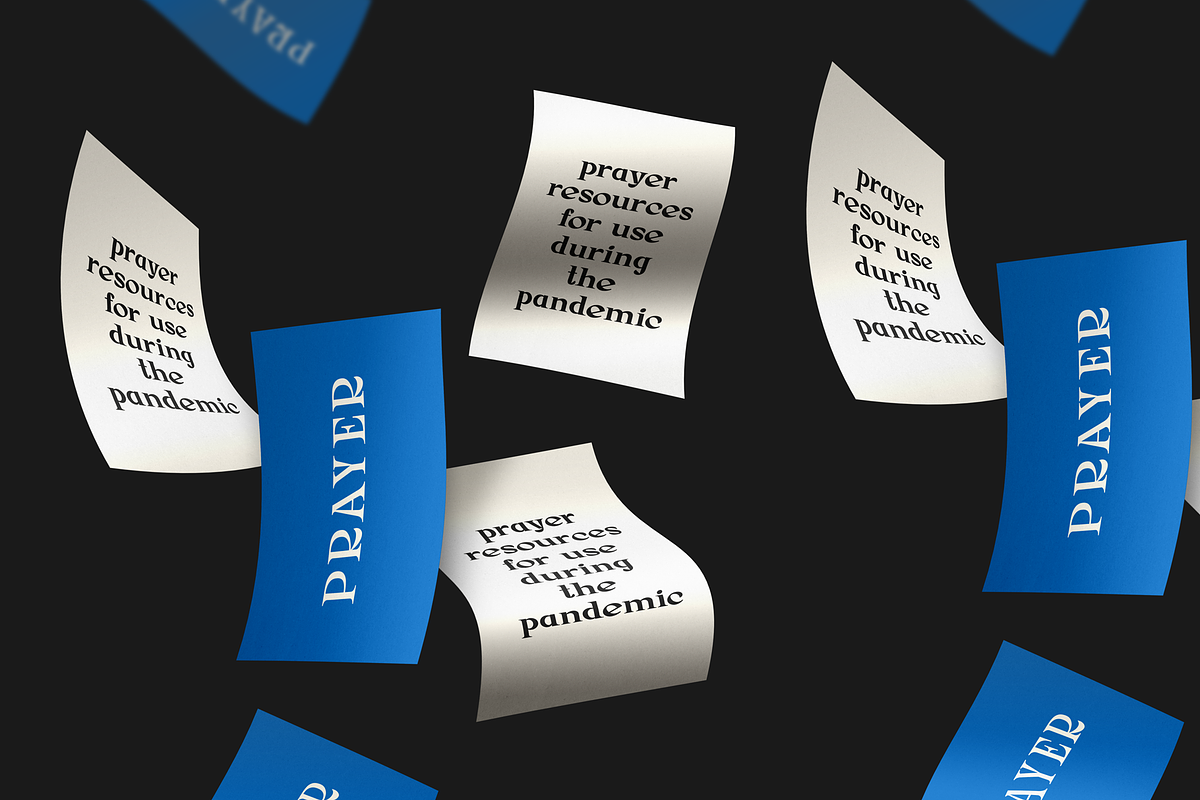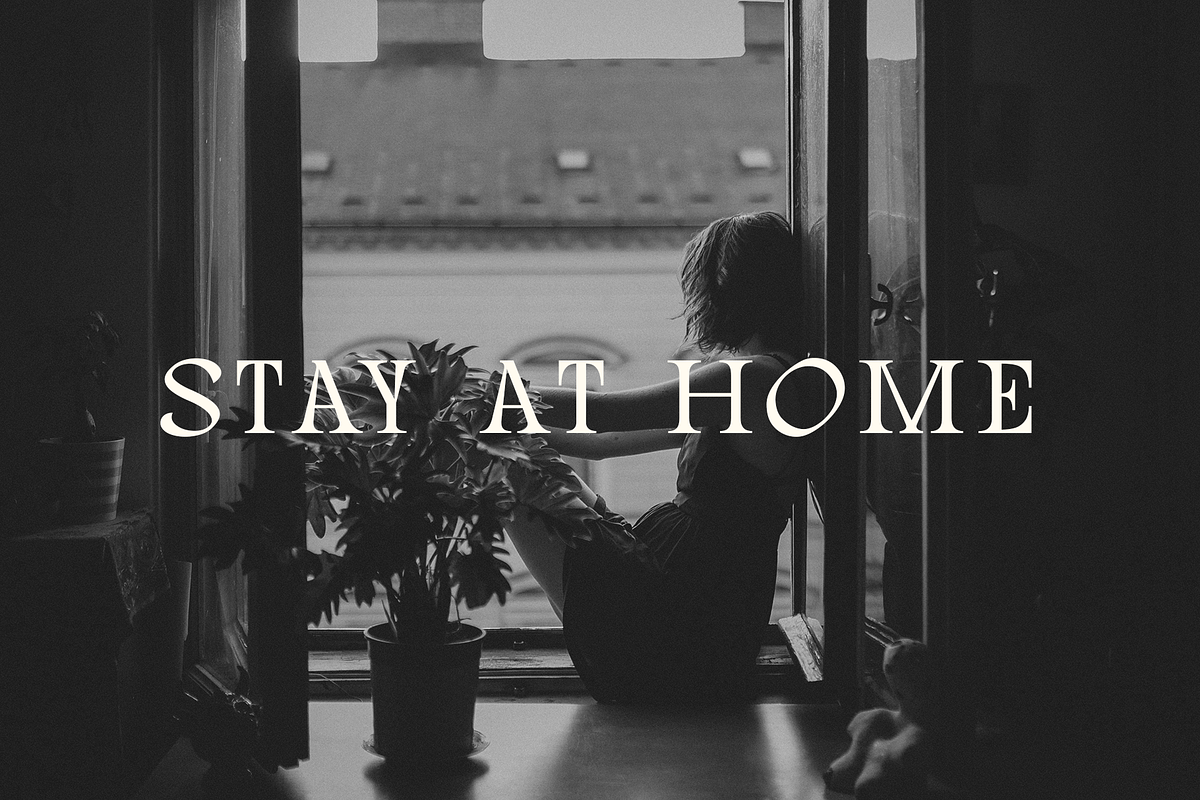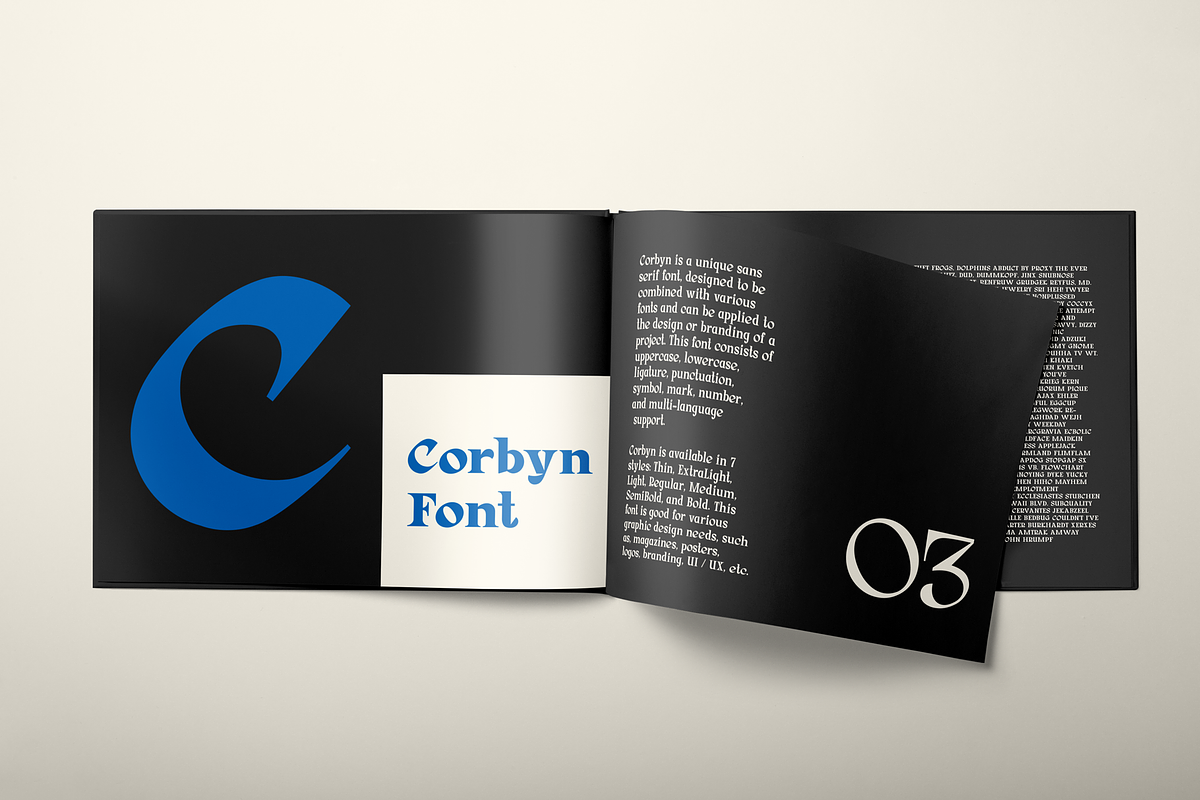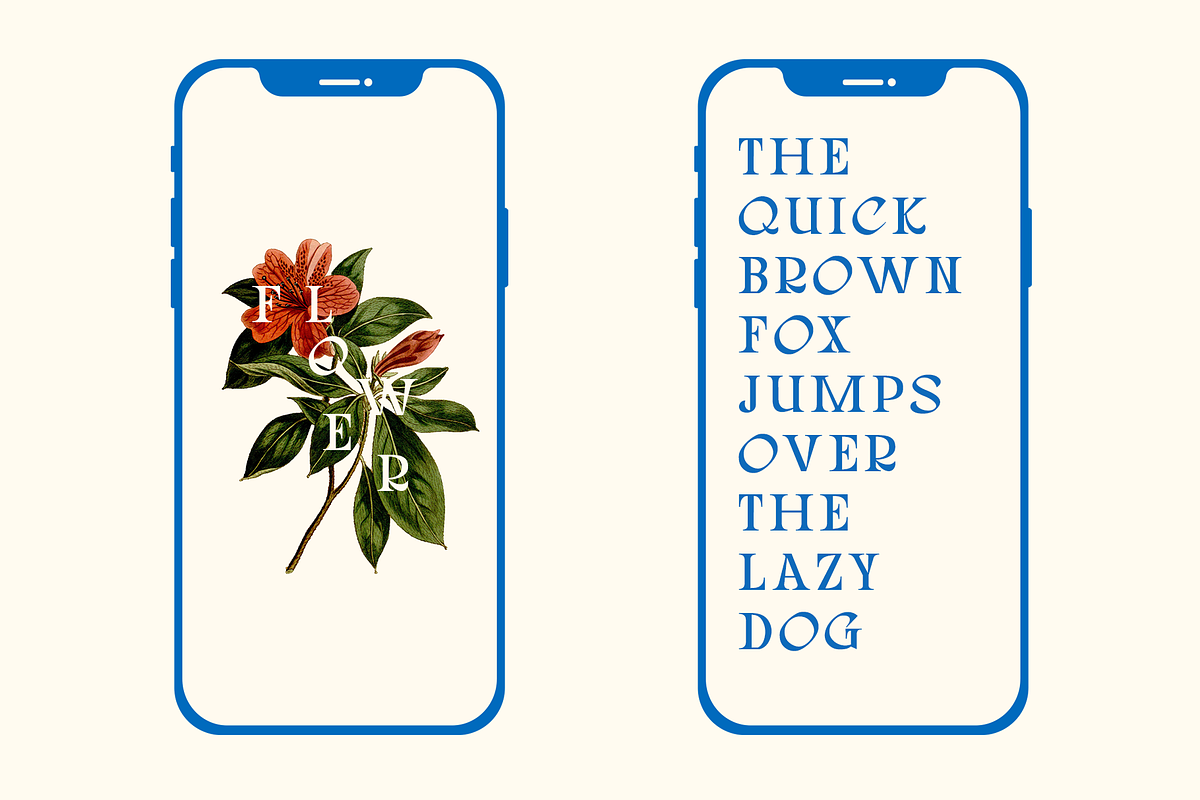
Corbyn Serif
Corbyn Serif is a unique serif font, designed to be combined with various fonts and can be applied to the design or branding of a project. This font consists of uppercase, lowercase, ligature, punctuation, symbol, mark, number, and multi-language support.
Corbyn Serif is available in 7 styles: Thin, ExtraLight, Light, Regular, Medium, SemiBold, and Bold. This font is good for various graphic design needs, such as, magazines, posters, logos, branding, UI / UX, etc.